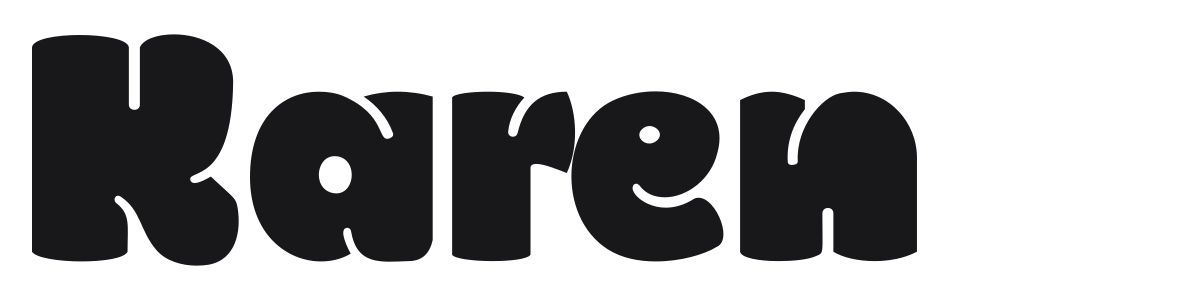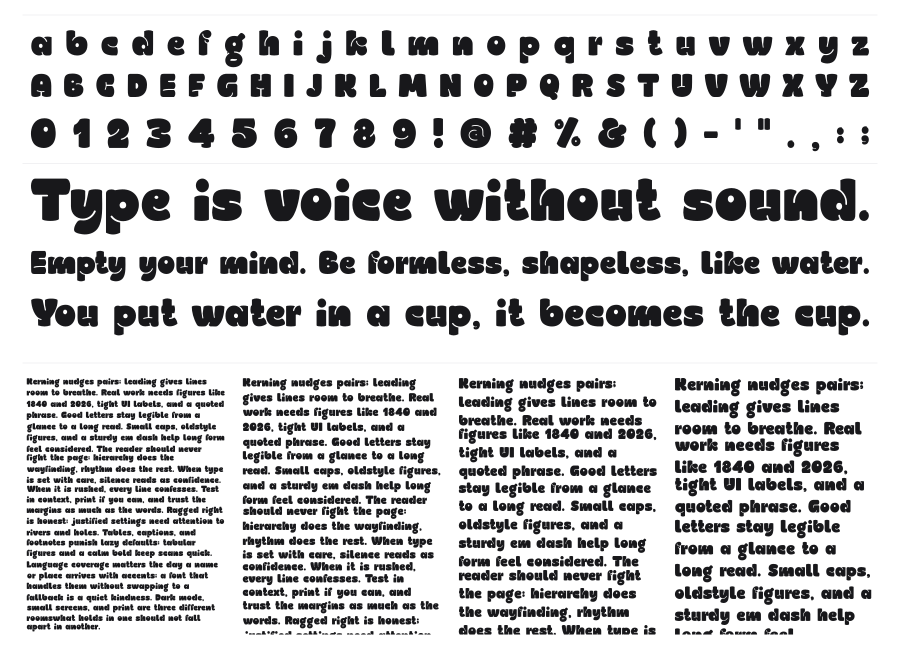
Karen
Karen is a heavy, bubbly display font with unmistakable 1970s groovy cartoon DNA. Every character inflates to near-maximum weight, with rounded terminals and bulging counters that give the letters a balloon-like presence. It brings instant retro fun to headlines, posters, and packaging.